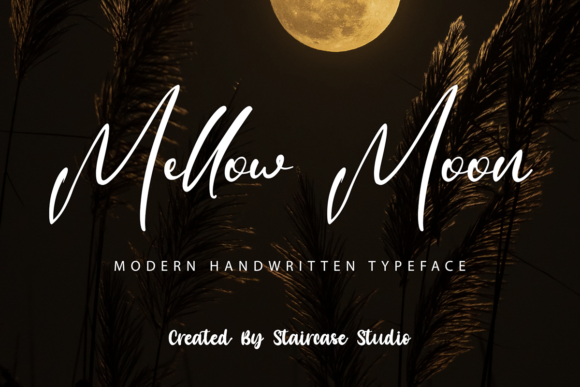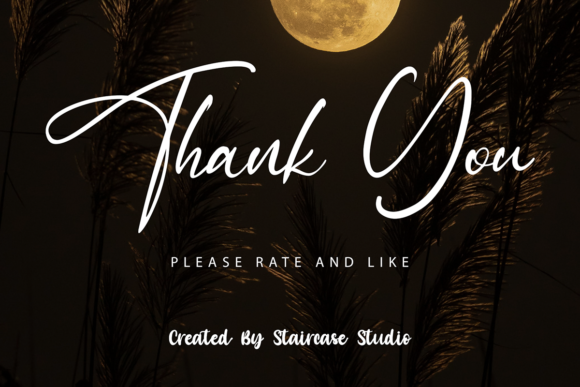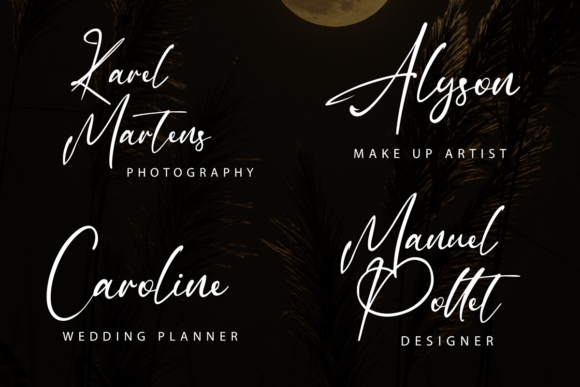
About Mellow Moon Font
Mellow Moon is a modern script font. A collection of letters and numbers suitable for your projects is also great for logotypes, branding designs, logos, digital lettering arts, t-shirt/apparel, posters, magazines, signs, advertising designs, and so much more.